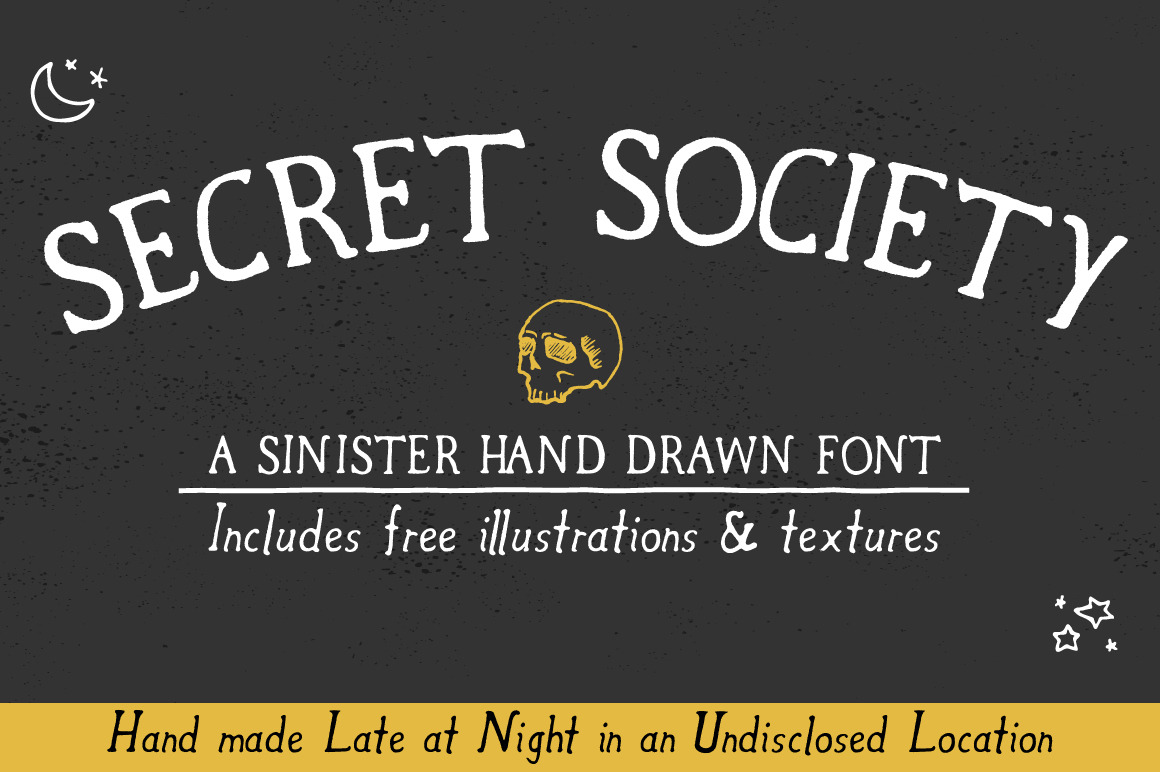
Secret Society Font + Bonus
Secret Society is a hand-drawn font inspired by shady dealings, nefarious henchmen and ghost stories. Secret Society will look just as good on your awesome design as it will on your (patent medicine label, tattoo, death threat, ransom note, wanted sign, tombstone, blood pact, etc.).
But this is so much more than just a font...
- All standard alpha-numeric characters